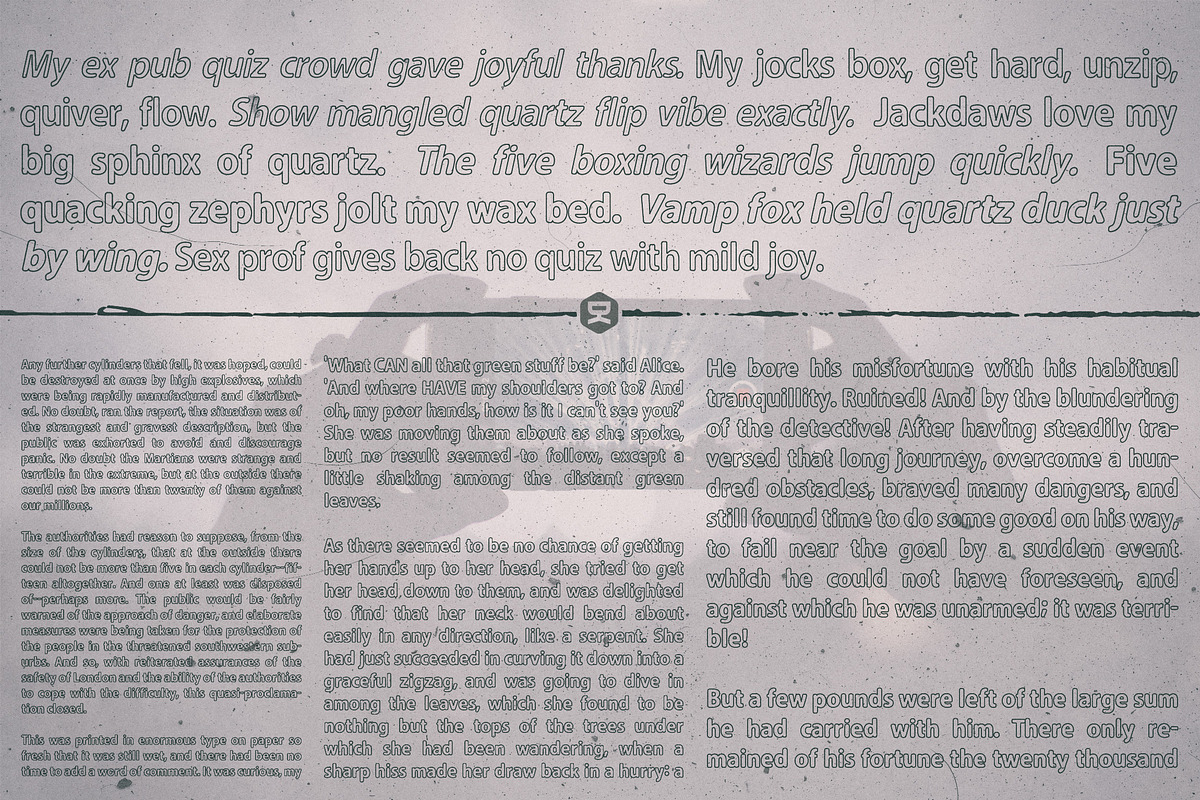
Carson Bundle
Carson a modern and robust slightly rounded sans serif font. Looks good on large sizes and in all caps, as well as in small, regular type.
- 23 weigths (Regular, Medium, Bold, Black, Outline, Handdrawn, Distorted, Blur, Halftone, Italics)